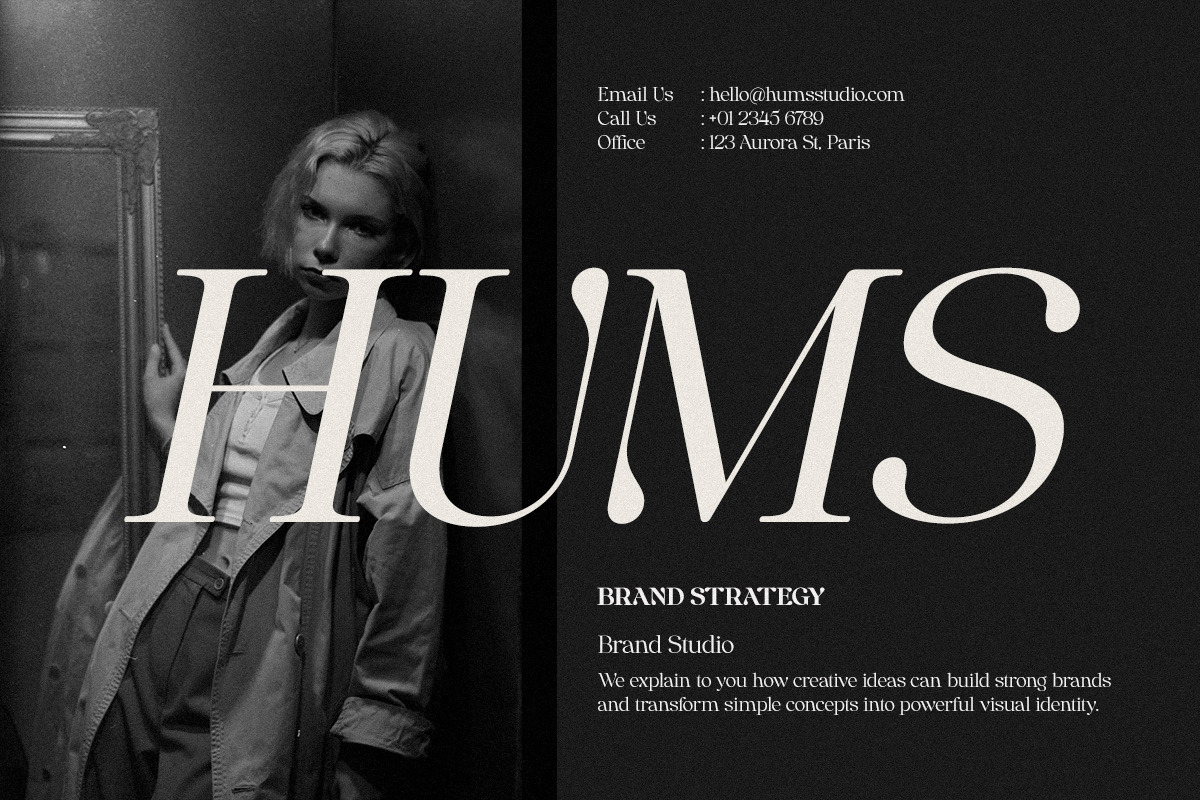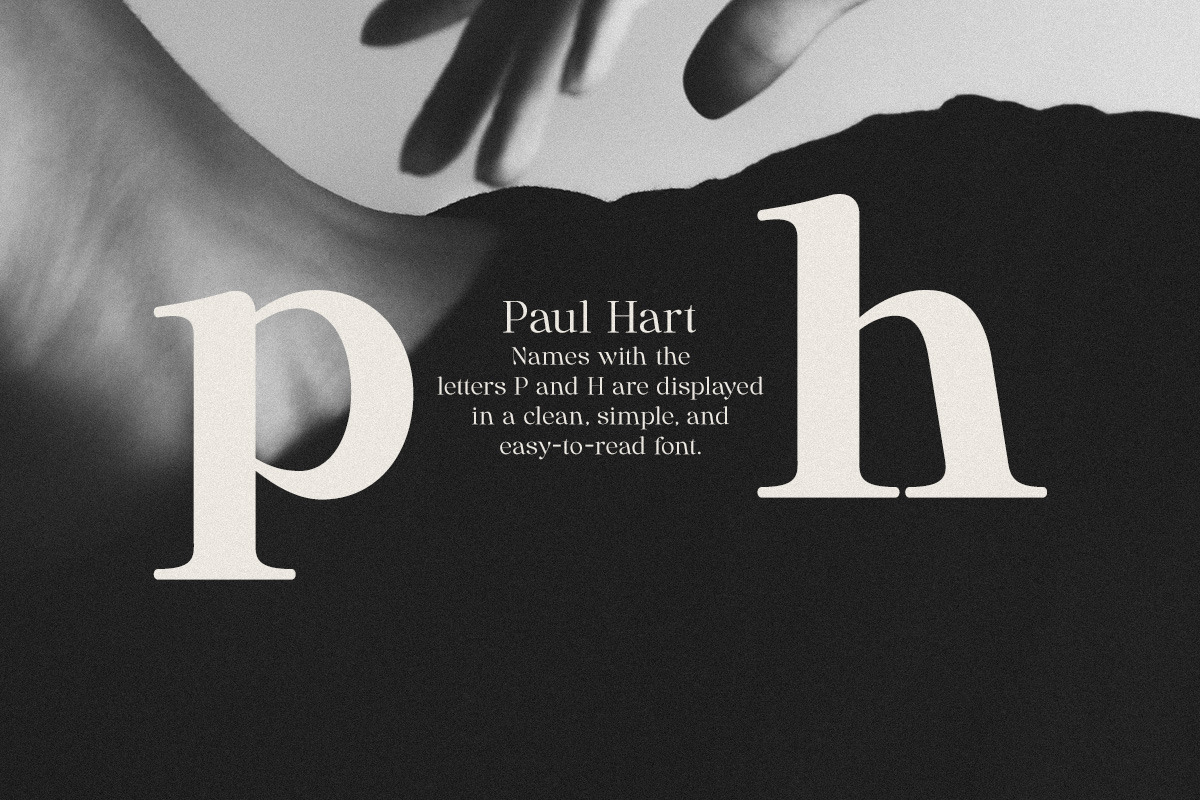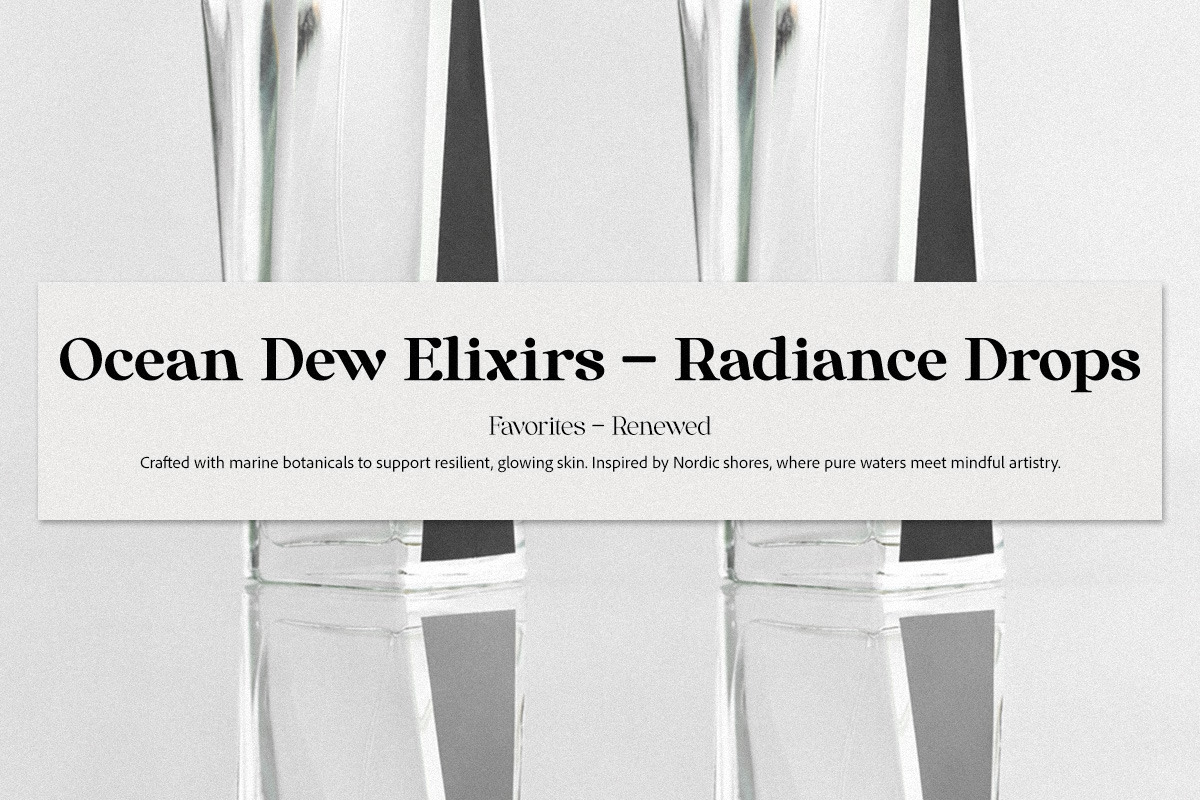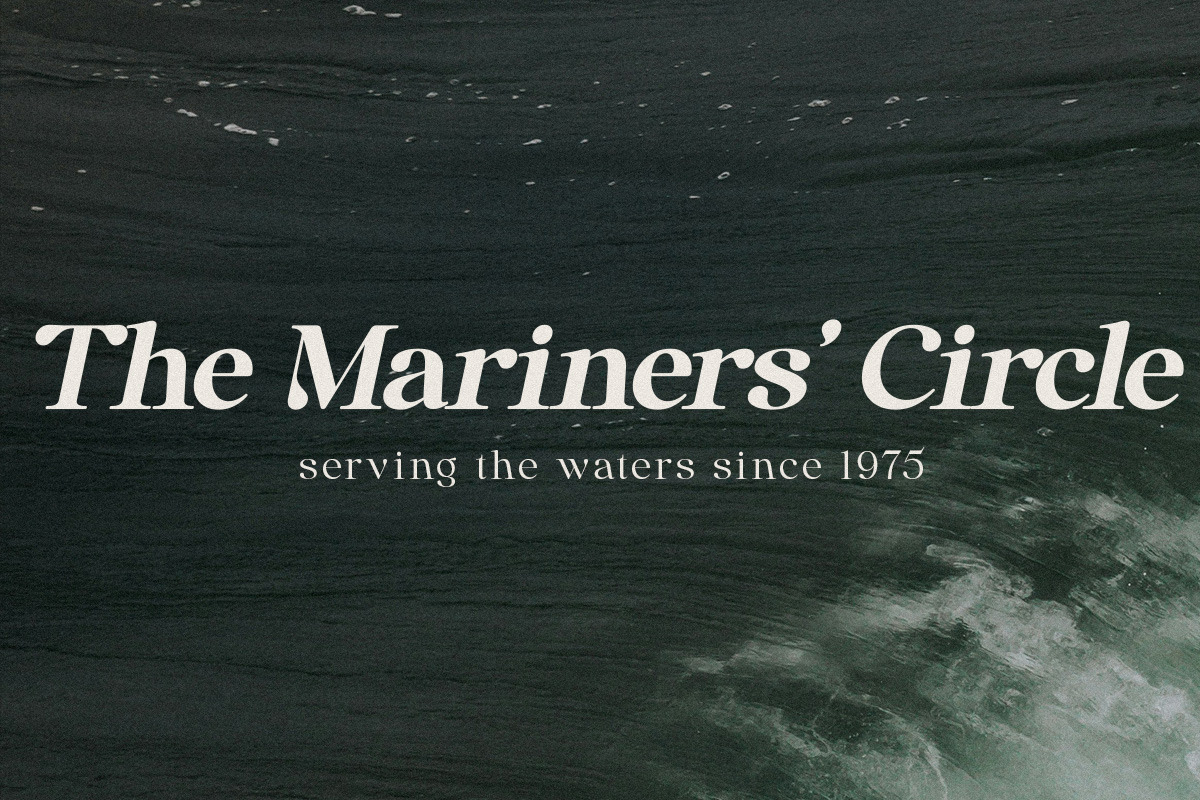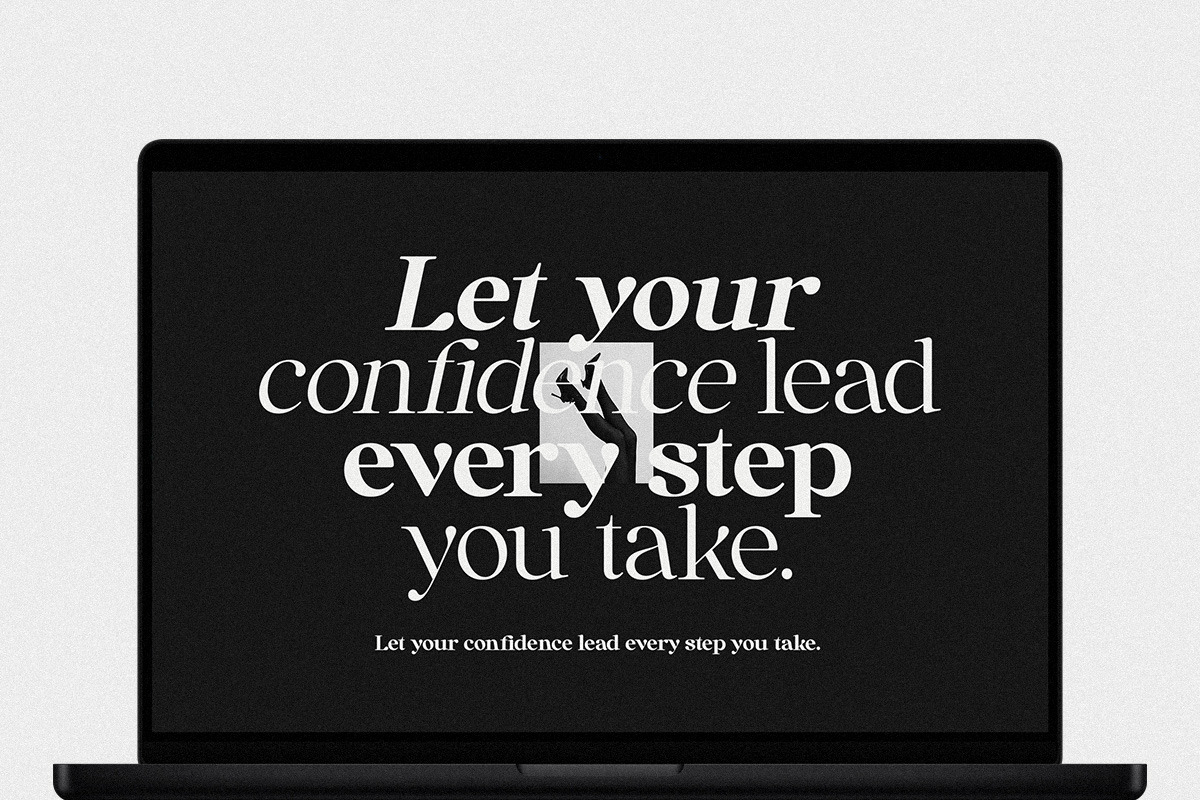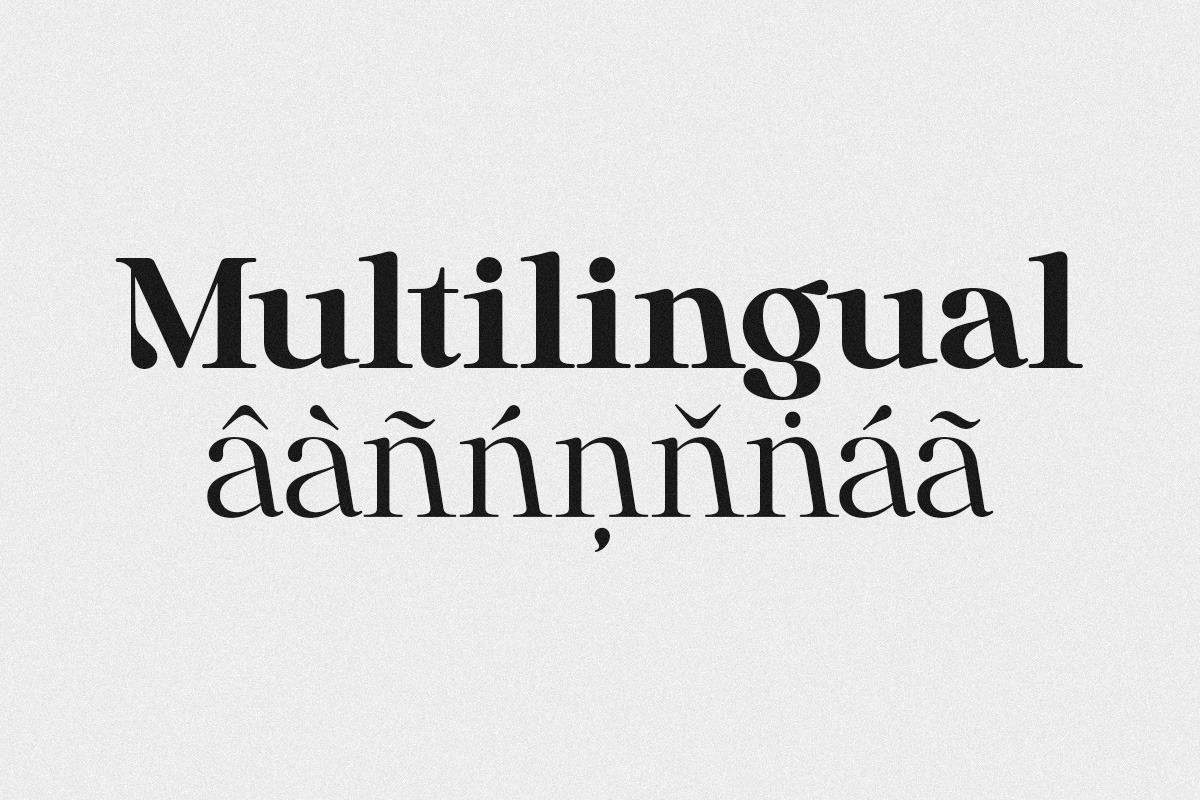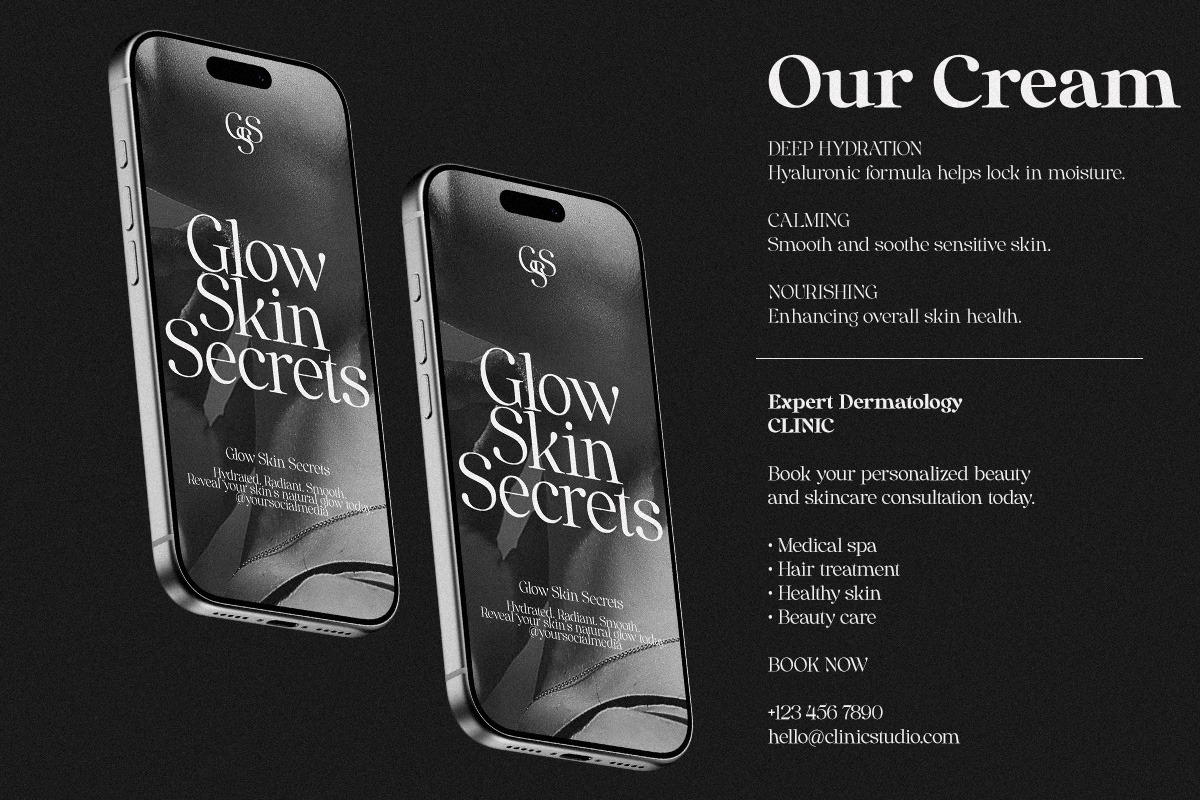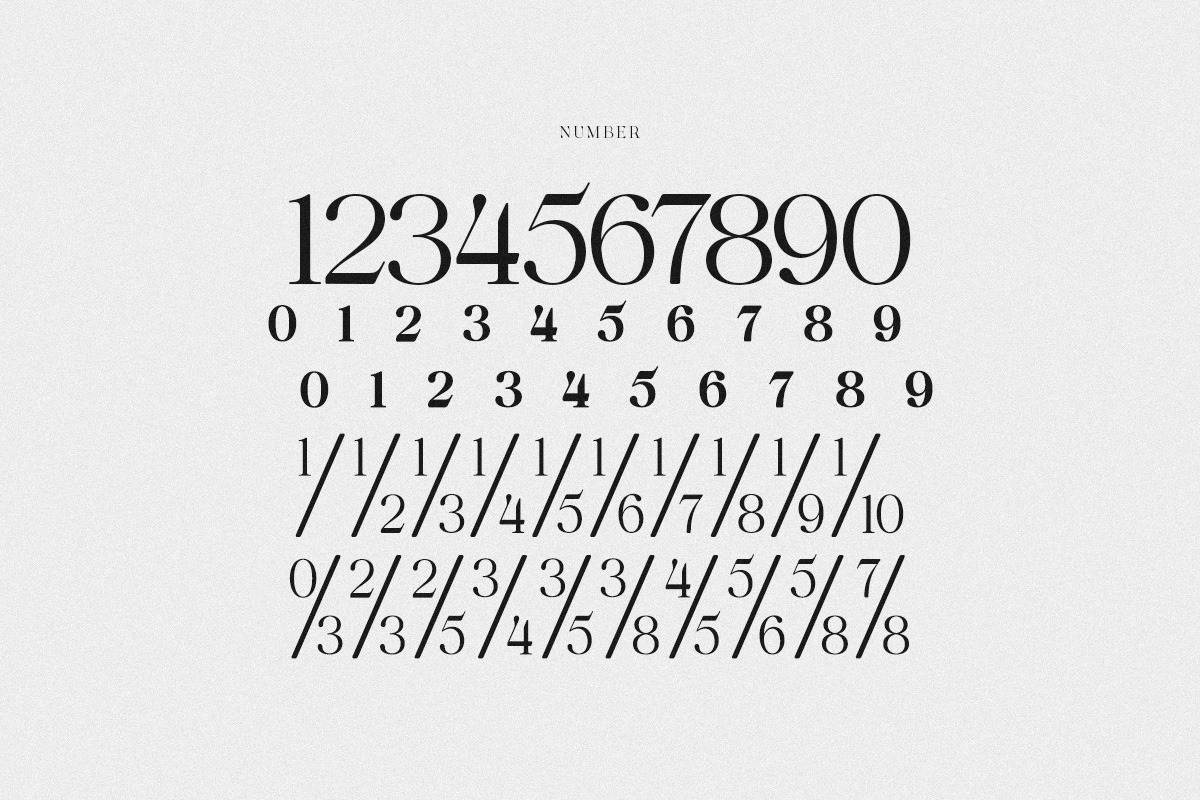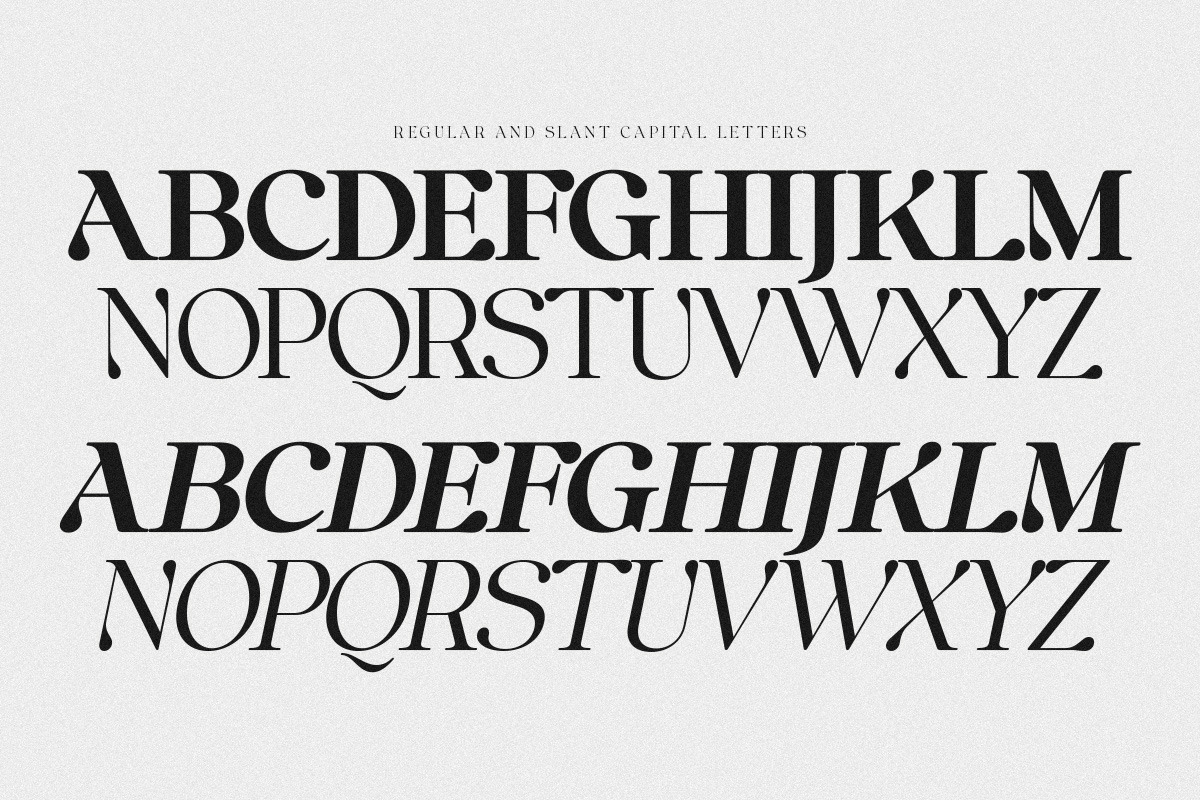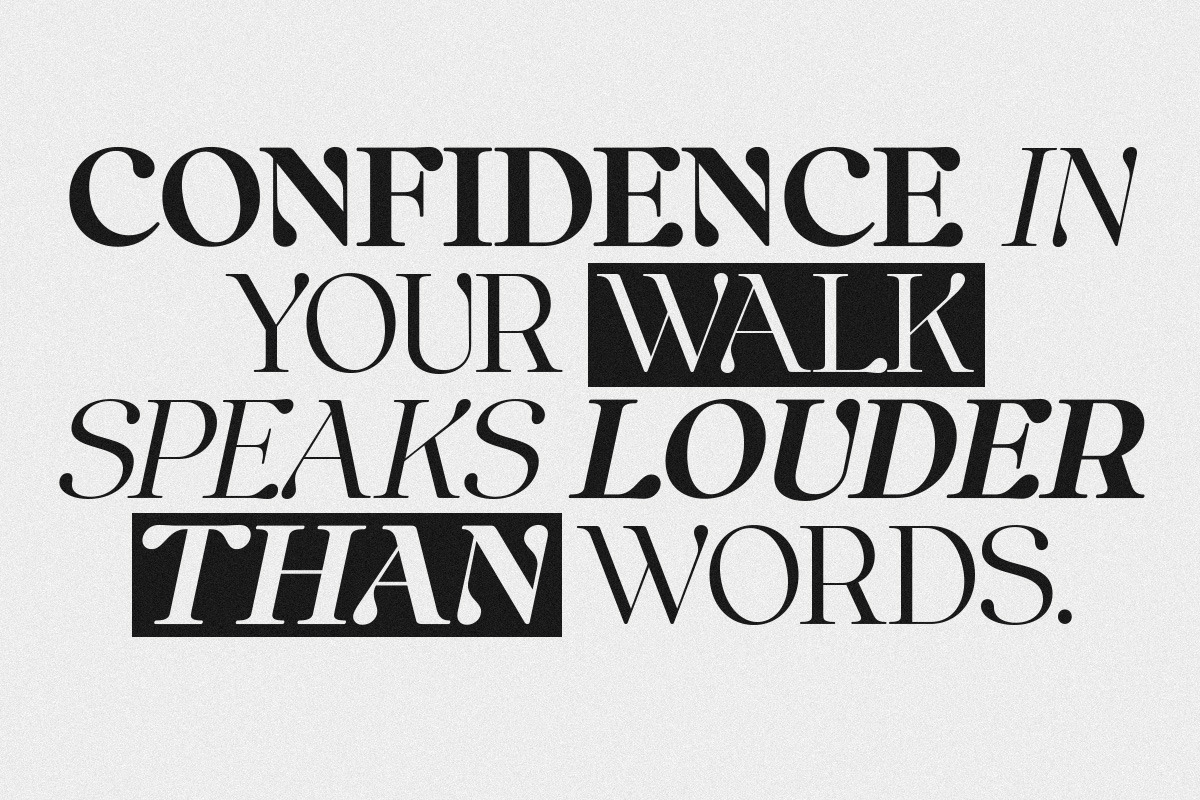
Anglica Serif
Anglica Serif is a nostalgic serif typeface that blends classic elegance with a soft, modern touch. Designed to bring a timeless atmosphere, Anglica Serif features graceful curves, refined serifs, and balanced letterforms that create a sophisticated and stylish appearance. Each character is carefully crafted to deliver a warm and expressive personality, making it perfect for designs that require both beauty and readability.
Inspired by vintage editorial typography, Anglica Serif works beautifully for branding, logos, magazine layouts, invitations, packaging, posters, and elegant social media designs. The smooth contrast between thick and thin strokes gives the font a luxurious and nostalgic feel while still remaining clean and versatile for various creative projects.
Anglica Serif is designed to help designers create visually appealing compositions with a classic charm and a modern aesthetic. Whether used for headlines or stylish text layouts, this typeface adds a distinctive and memorable character to your design.